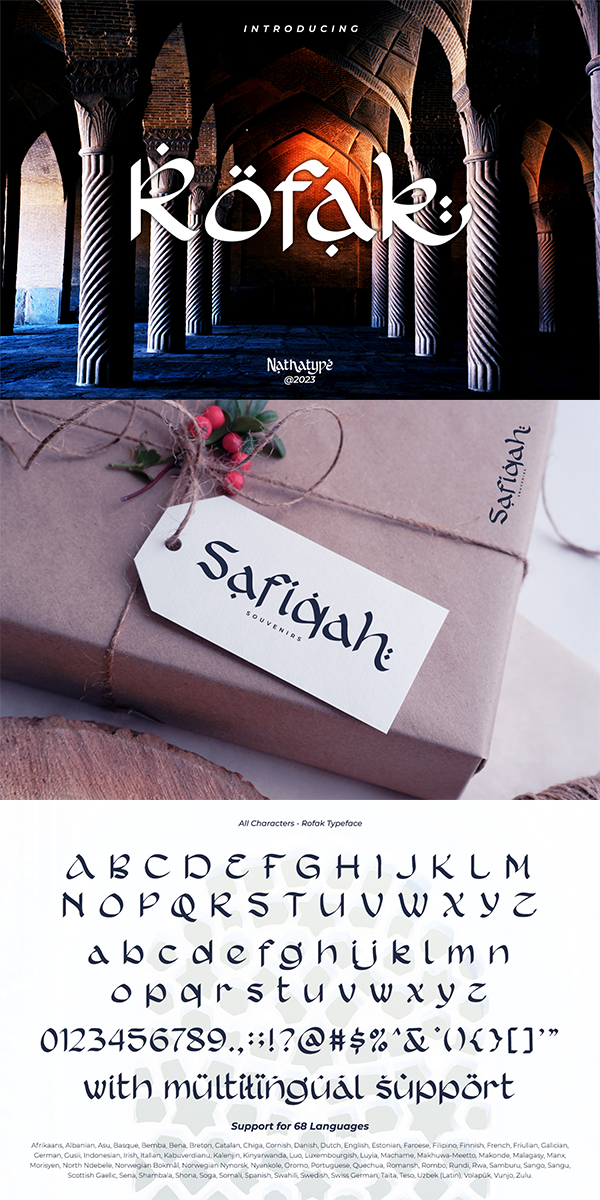
Rofak Font
About Rofak
Rofak, a unique and captivating display font. Rofak takes inspiration from Arabic script and introduces a distinct rounded design to the characters. This choice softens the edges while preserving the elegance of Arabic calligraphy, resulting in a typeface that exudes a sense of warmth and approachability. Rofak prioritizes readability by maintaining low contrast between strokes and curves. In addition, enjoy the features here.
With its unique combination of rounded forms and low contrast, Rofak is versatile and well-suited for diverse design projects. Rofak fits in headlines, logos, posters, flyers, branding materials, print media, editorial layouts, and many more designs. Find out more ways to use this font by taking a look at the font preview.